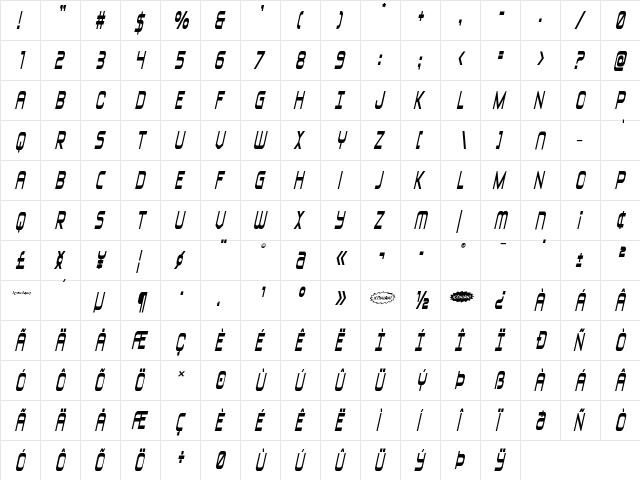
Blizzard Shaft Semi-Italic Regular
Design Context for Blizzard Shaft Semi-Italic Typeface
Blizzard Shaft Semi-Italic takes a measured approach to typography — its balanced proportions and neutral character make it a reliable workhorse for both digital and print work. The dynamic lean of this cut emphasises speed and emphasis in any layout.
Pro Tip: Try Blizzard Shaft Semi-Italic for annotation and caption copy alongside an upright companion — the contrast in angle creates a dynamic but ordered typographic system.